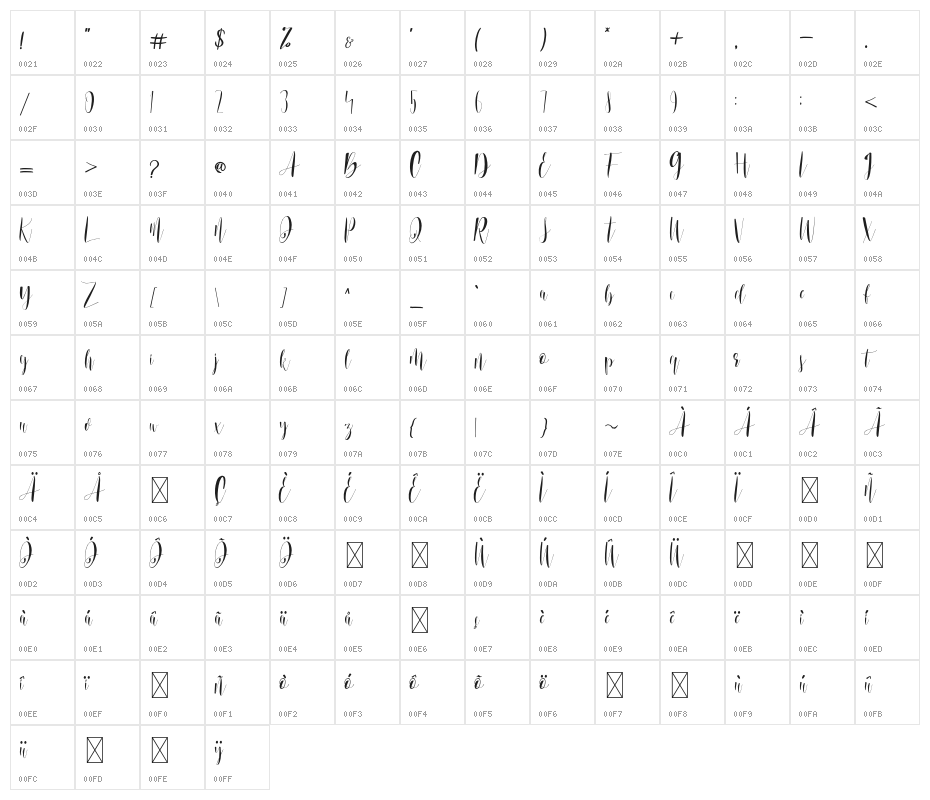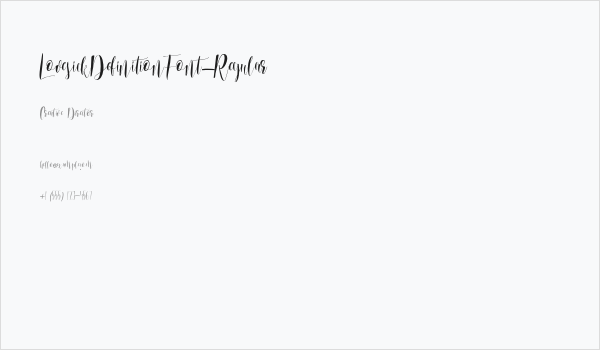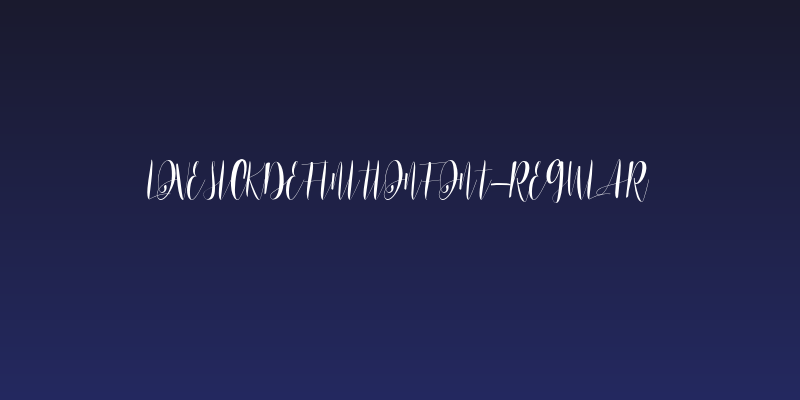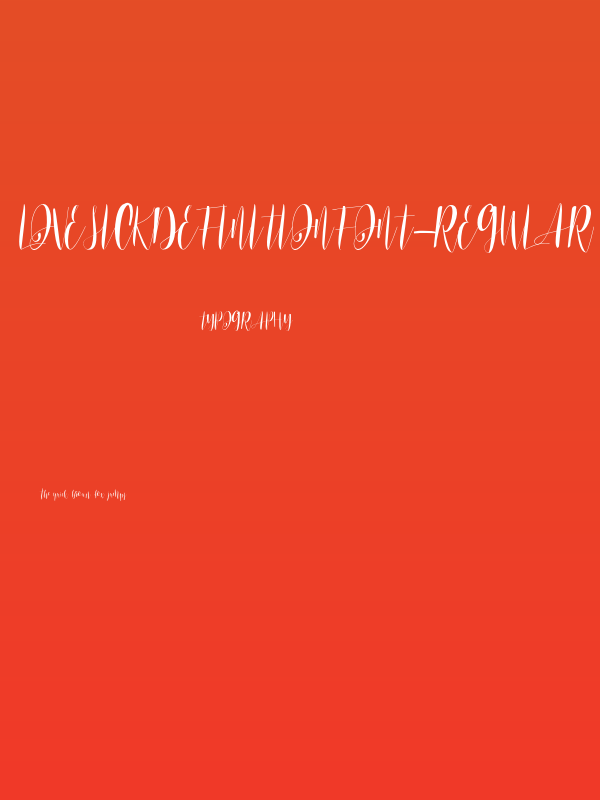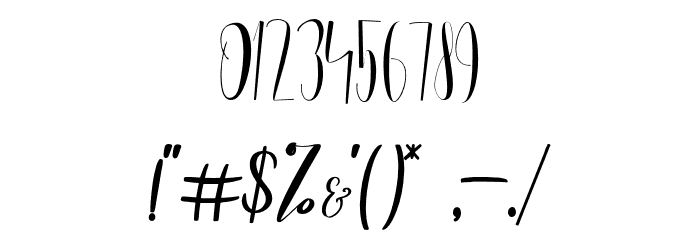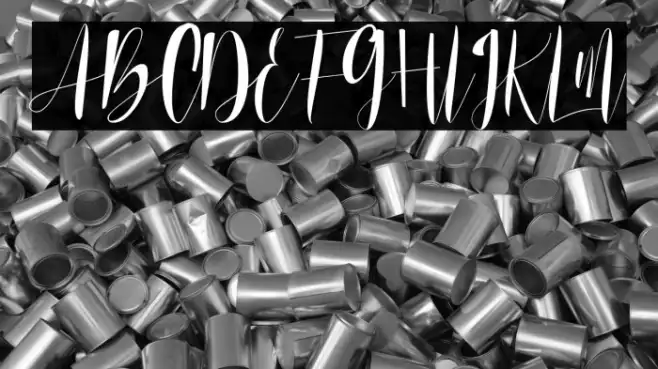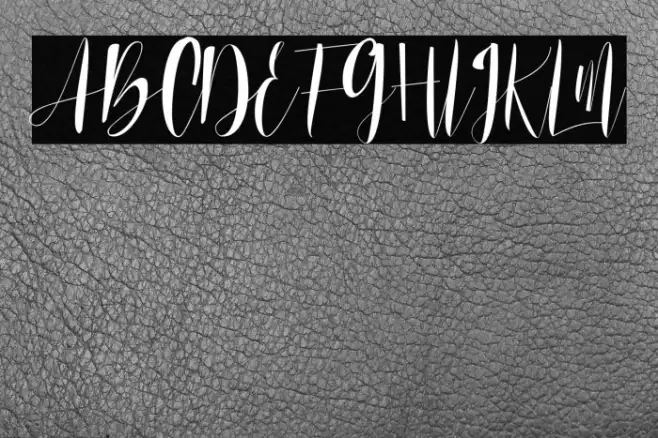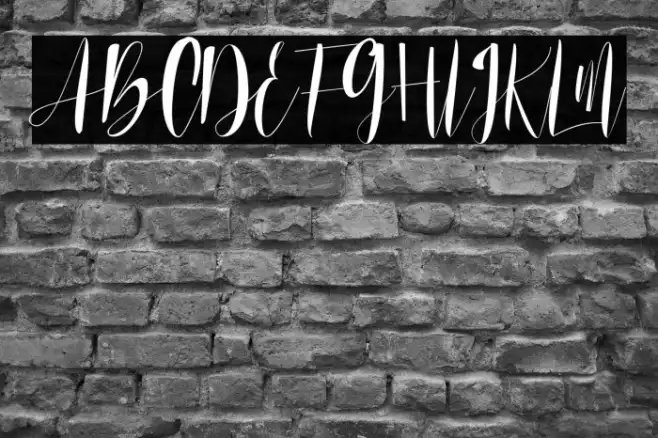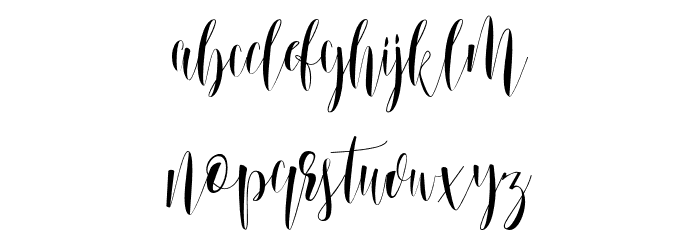
LovesickDefinitionFont-Regular Font
LovesickDefinitionFont-Regular Description
This font features an elegant, flowing script style that exudes a sense of romance and sophistication. The characters are intricately designed with a combination of thick and thin strokes, creating a dynamic and graceful appearance. The uppercase letters are particularly striking, with sweeping curves and loops that add a touch of drama. The lowercase letters maintain a consistent flow, enhancing readability while preserving the decorative nature of the font. Numbers and special characters are crafted with the same attention to detail, ensuring a cohesive look across all elements. This font is perfect for projects that require a touch of elegance and charm.